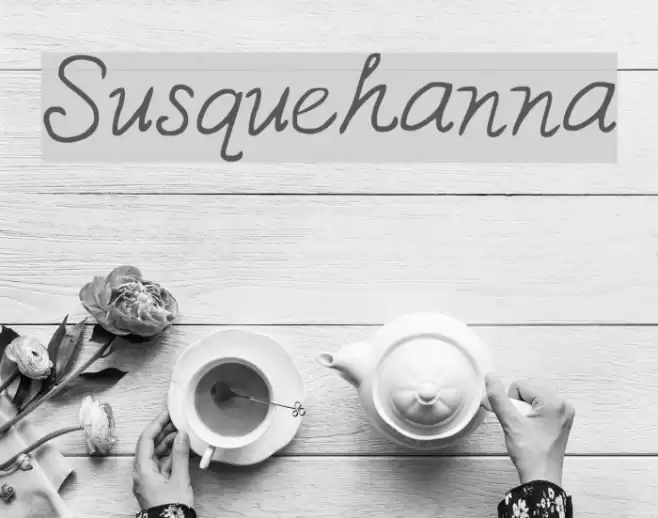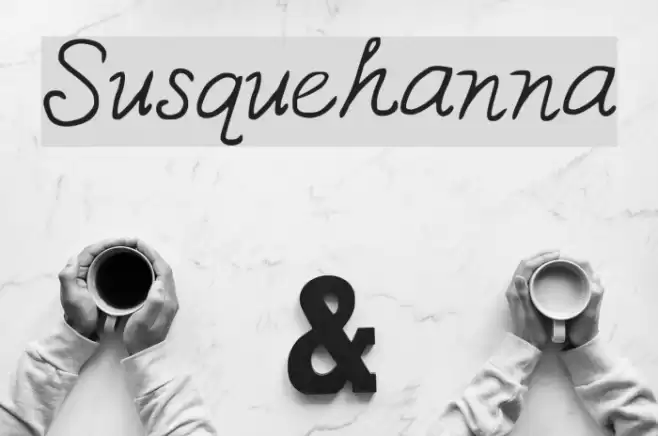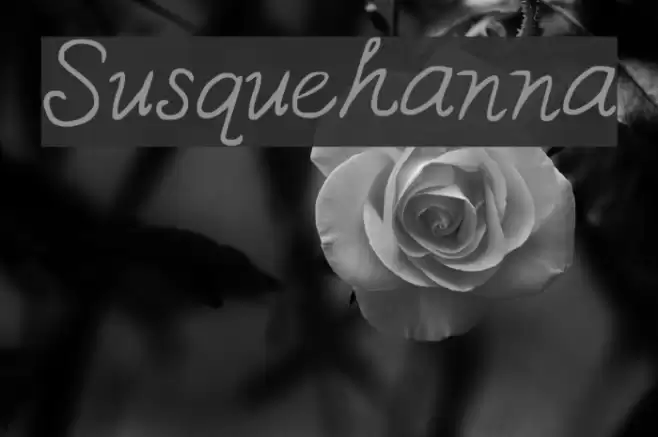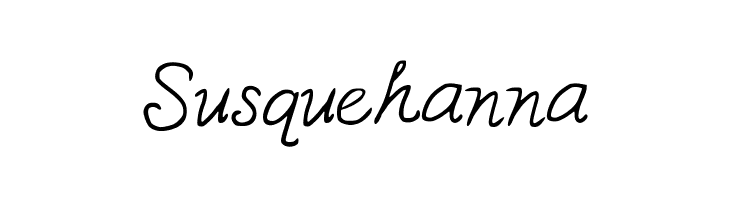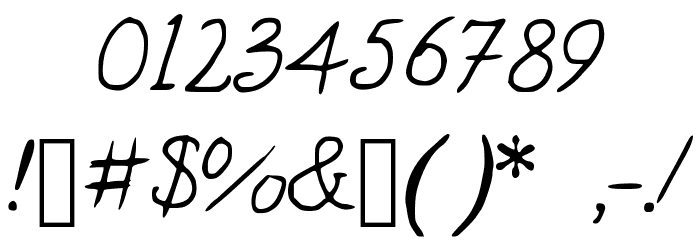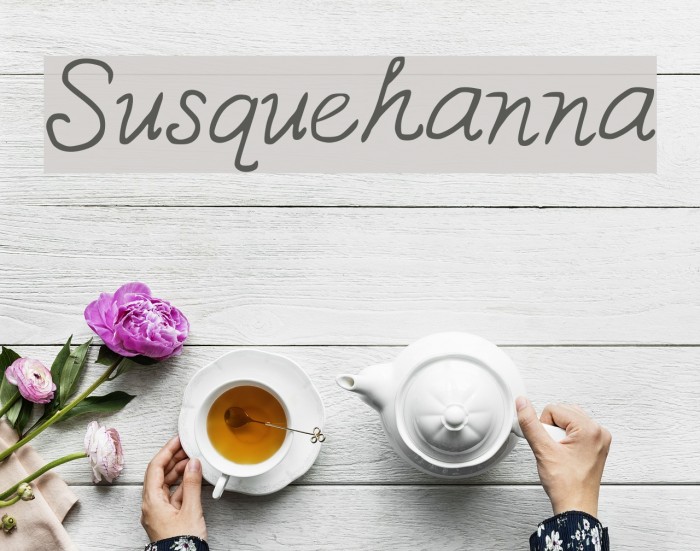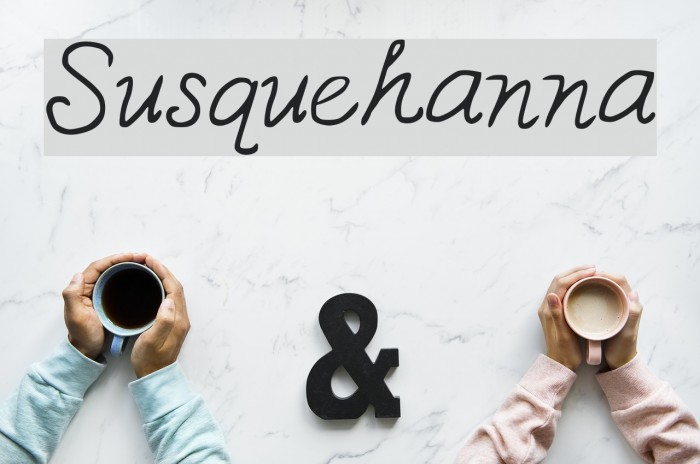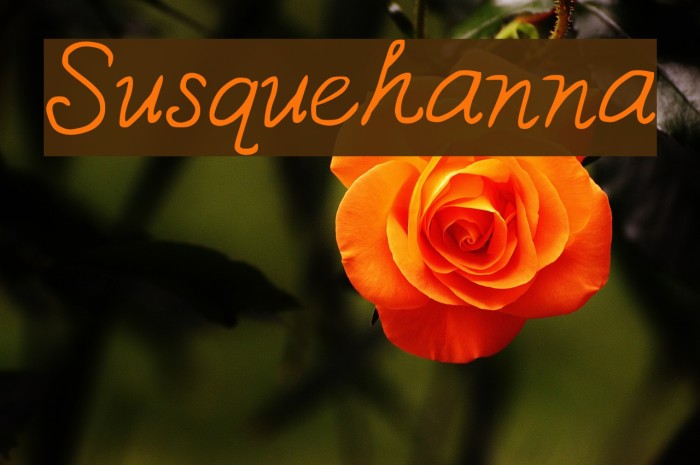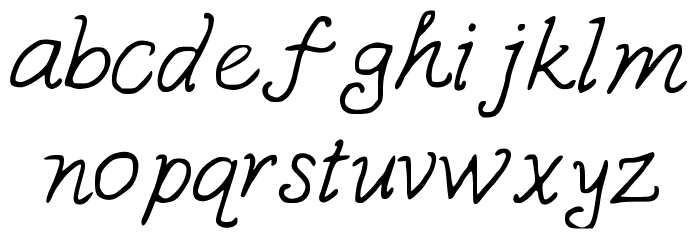
Susquehanna Font
Susquehanna Description
This font features an elegant and flowing script style, characterized by its smooth, cursive strokes and a slight slant to the right. The uppercase letters are ornate with subtle flourishes, while the lowercase letters maintain a consistent, connected flow, enhancing readability. The numerals are designed to match the script style, offering a harmonious appearance. Special characters are crafted with the same attention to detail, ensuring they blend seamlessly with the rest of the typeface. This font exudes a classic and sophisticated feel, making it suitable for formal and decorative applications.
An elegant, flowing script font with a classic, sophisticated style from Handwritten fonts.
- Proposed Projects: Ideal for wedding invitations, elegant branding, personal stationery, and decorative headlines.
- Overall Style: Classic
- Use Case: Headlines, Invitations, Branding